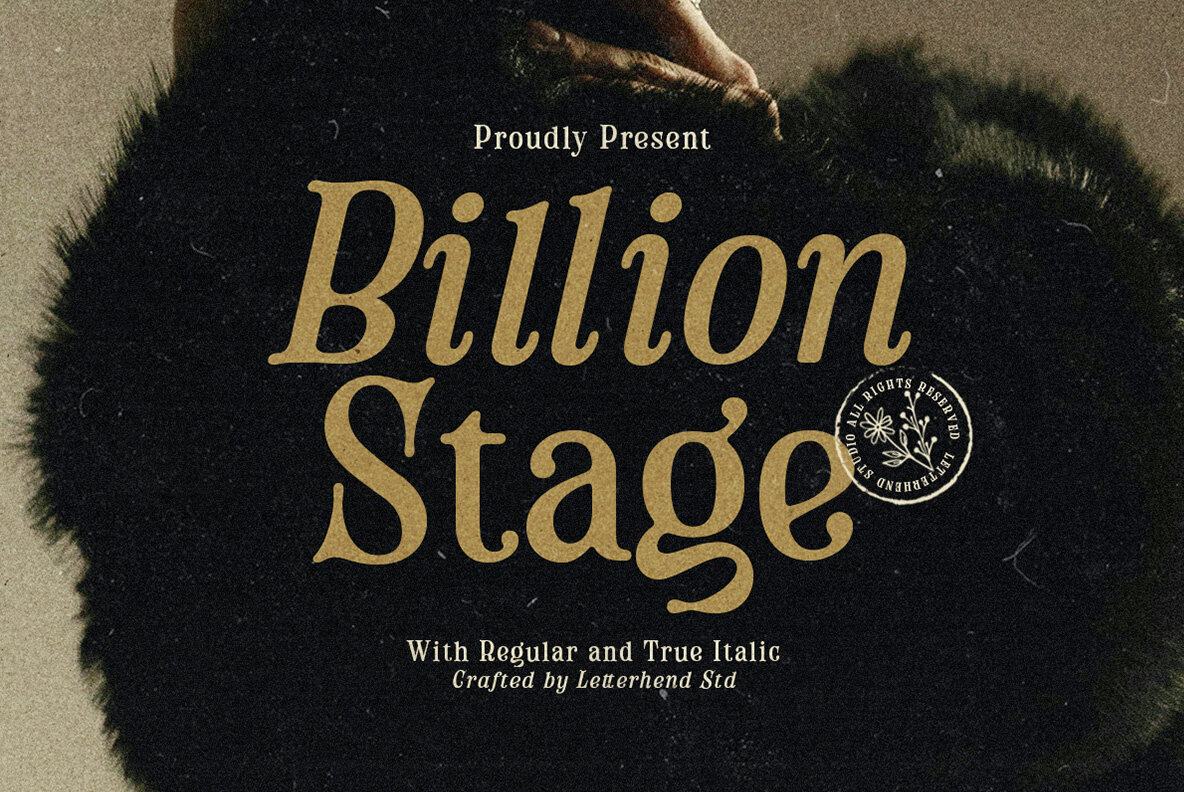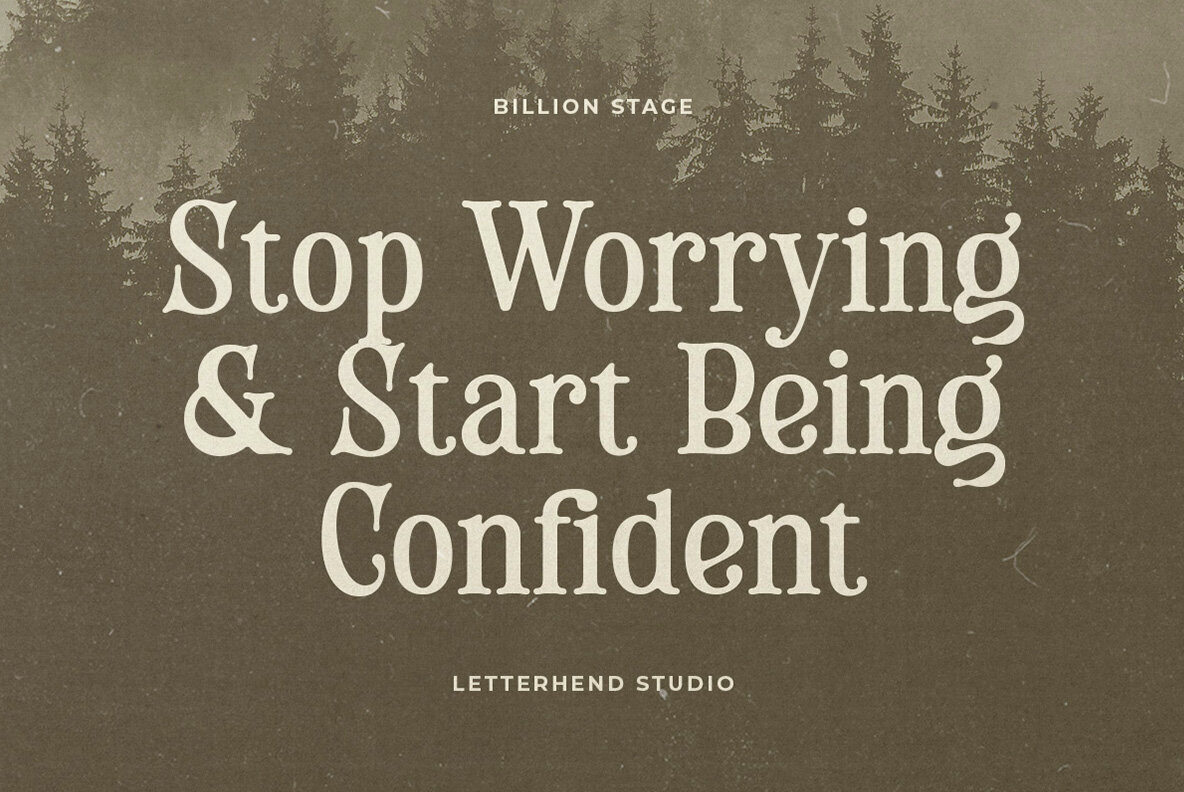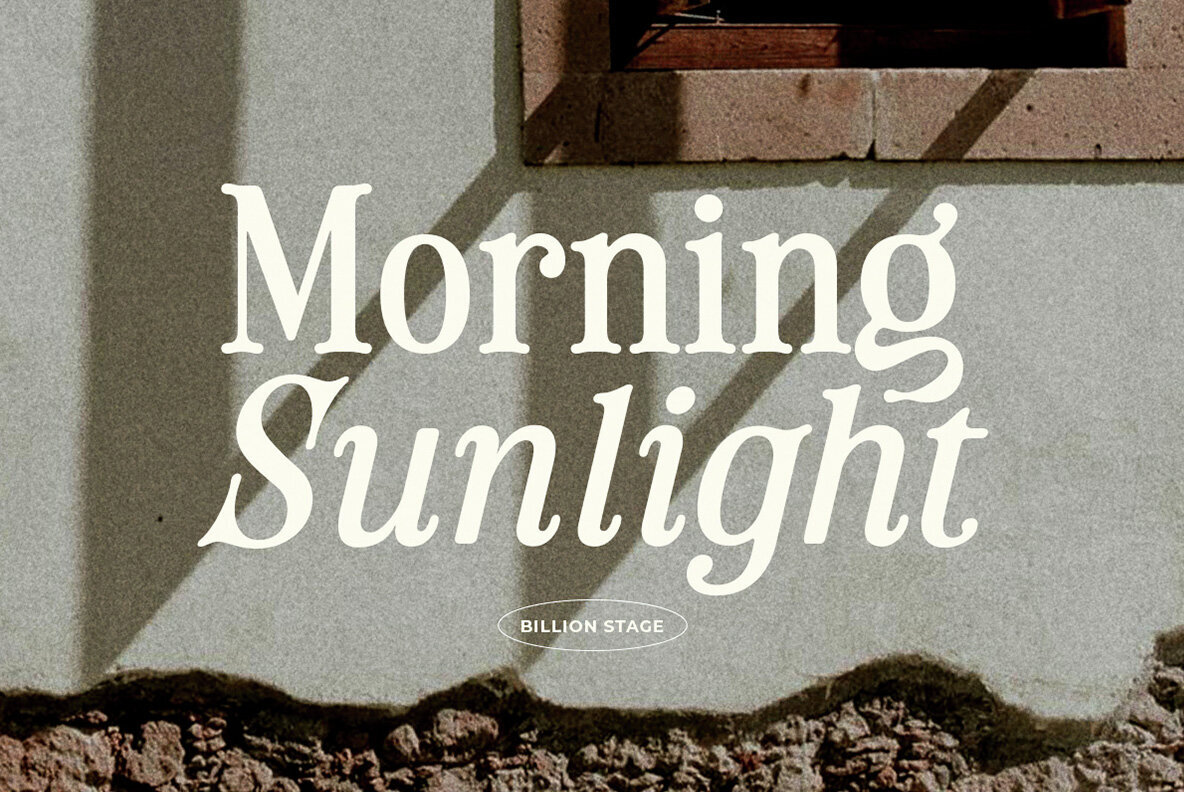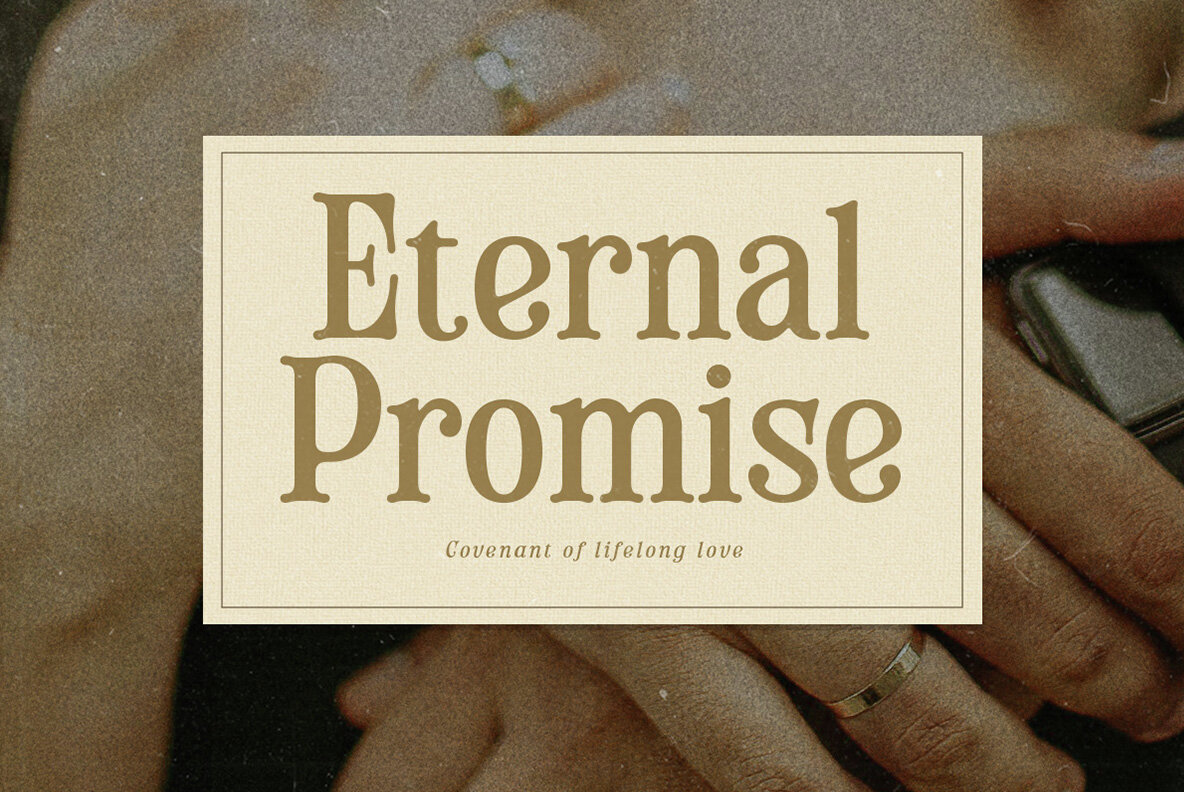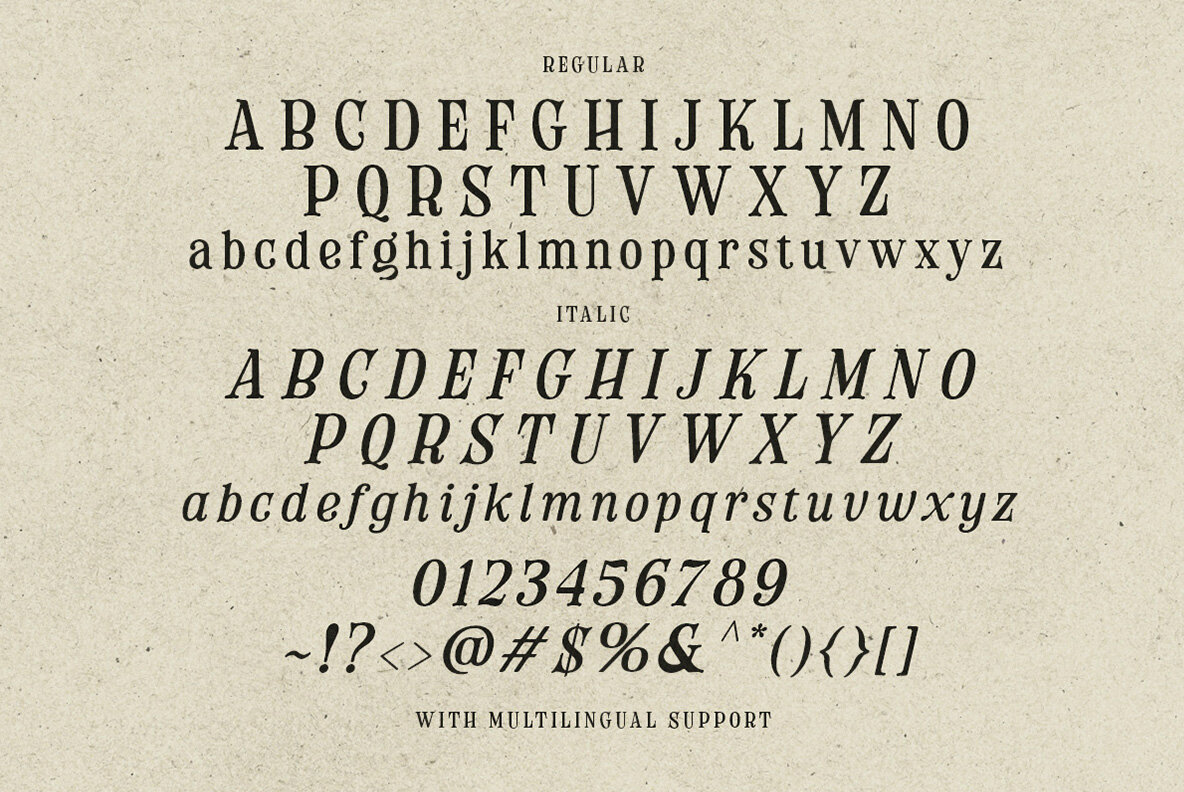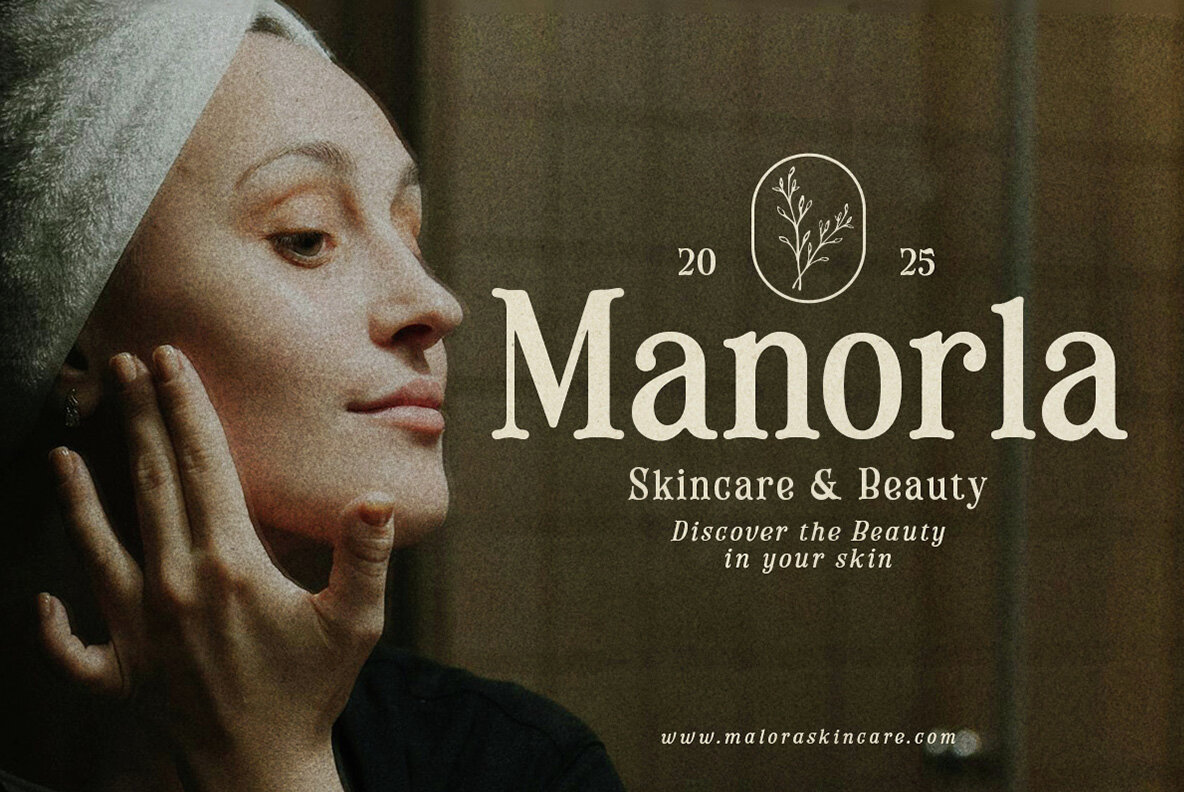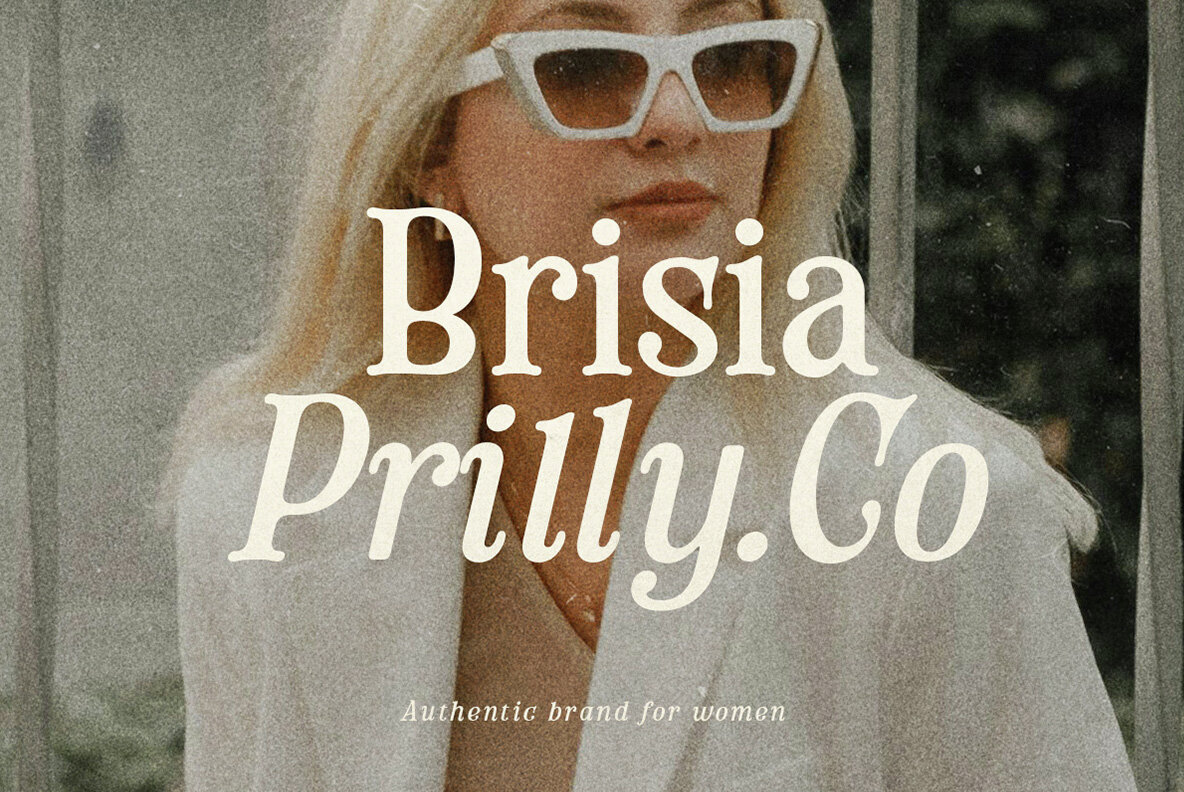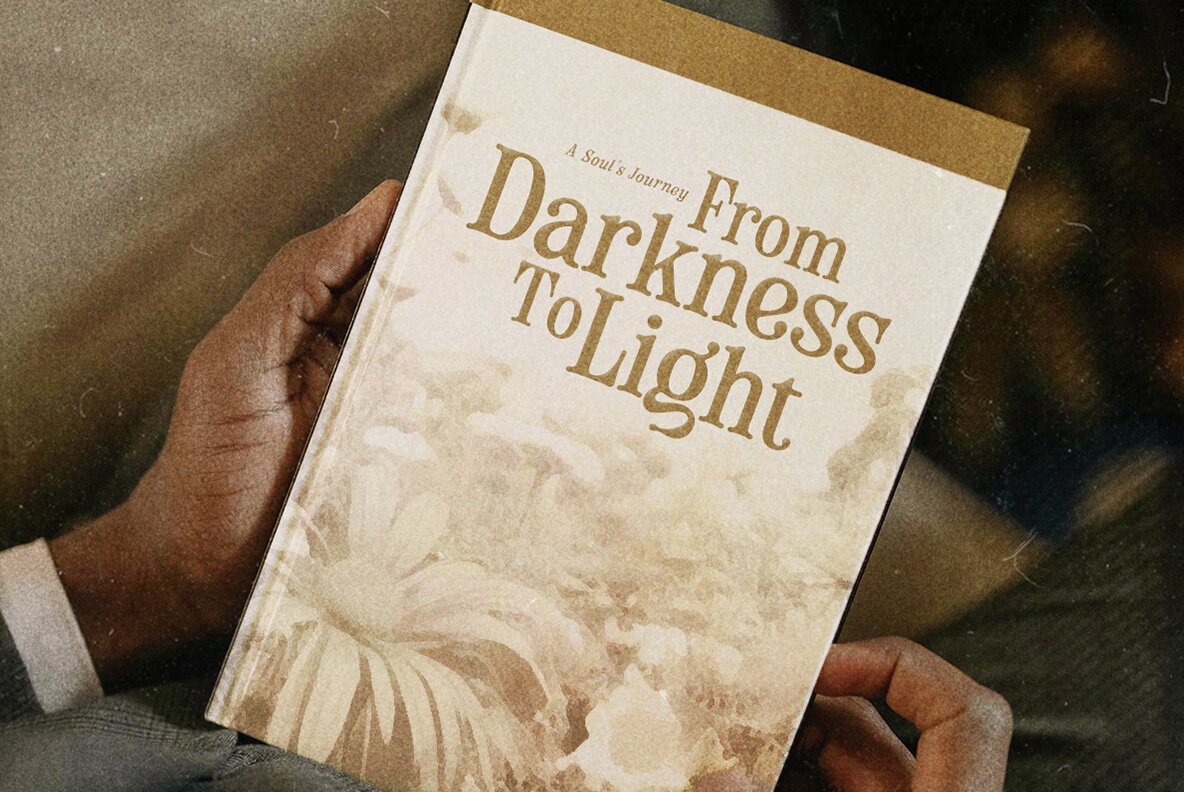
Billion Stage Font
Experience the vintage charm of Billion Stage, a bold serif typeface perfect for bringing elegance to any creative project. Its unique blend of classic appeal and modern design makes it ideal for branding, editorial work, logos, product packaging, and invitations. The sleek curves and stylish ligatures offer a luxurious touch, while maintaining a balance between readability and decoration. Billion Stage comes in regular and true italic styles, providing versatility for designers who appreciate a high-end artistic aesthetic. Whether you're designing a retro-inspired piece or a modern layout, this typeface adapts beautifully to your needs. Its refined letterforms and thoughtful details make it a timeless choice for any sophisticated design. To fully appreciate the versatility of Billion Stage, we recommend using programs that support OpenType features and Glyph panels, such as Adobe apps and Corel Draw, to access all available Glyph variations.Billion Stage Typeface: A Sophisticated Serif for Timeless Designs